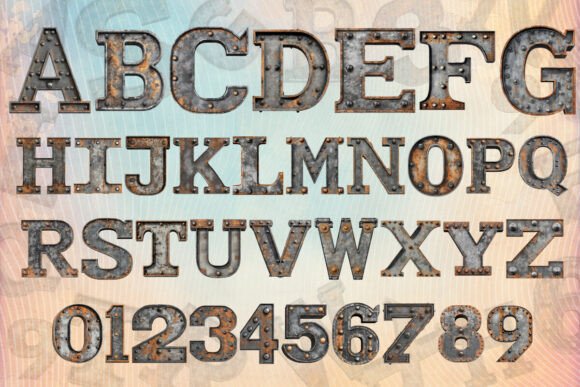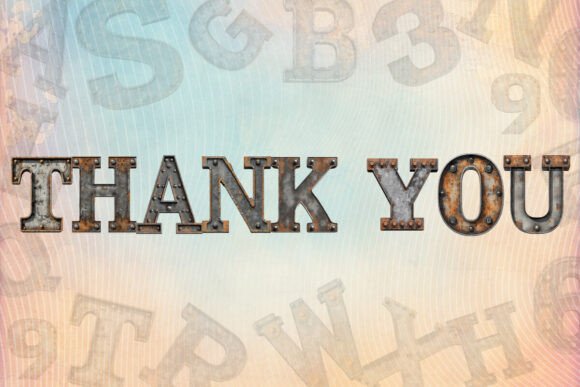
Steel Metal Font
Steel Metal is a bold decorative font with letters that look like shiny, silver steel. Each letter has a metallic texture, giving it an industrial, heavy-duty style. Perfect for designs that need a strong, tough, and modern look.